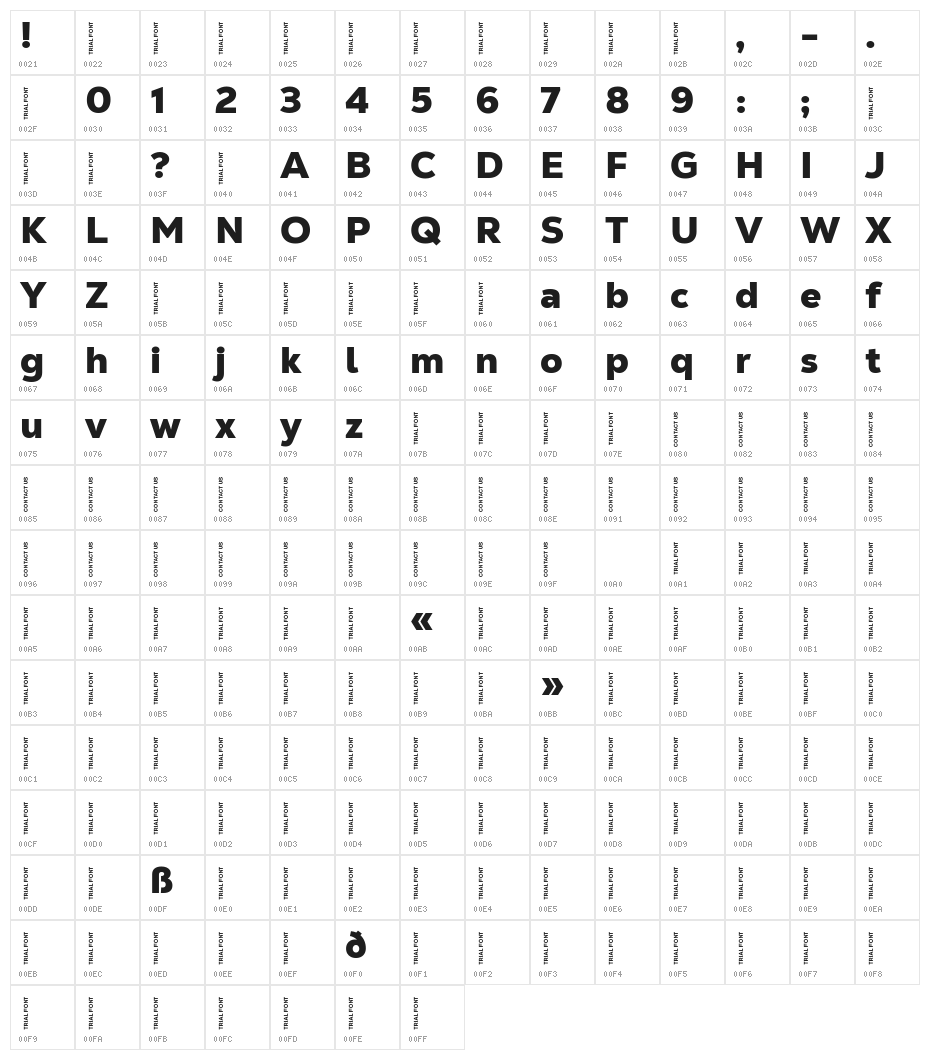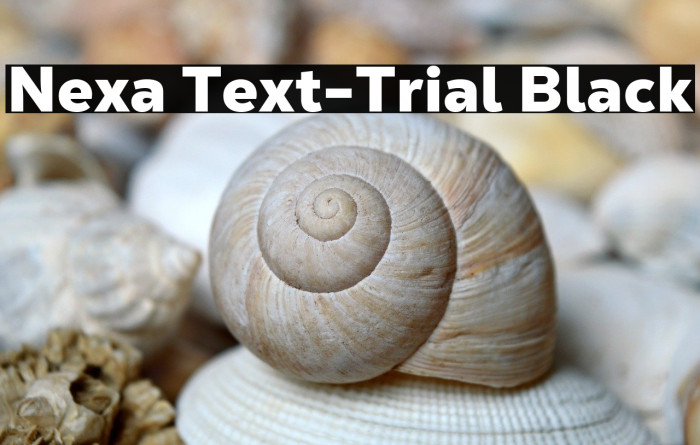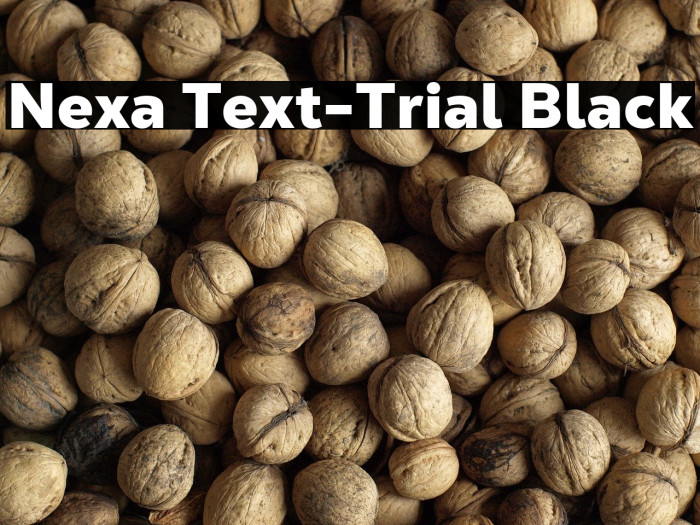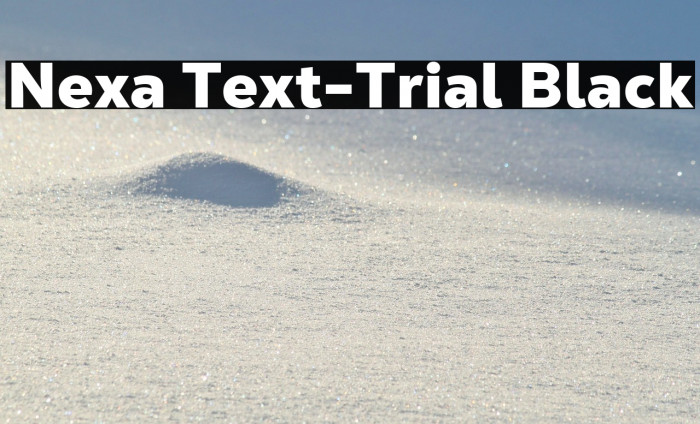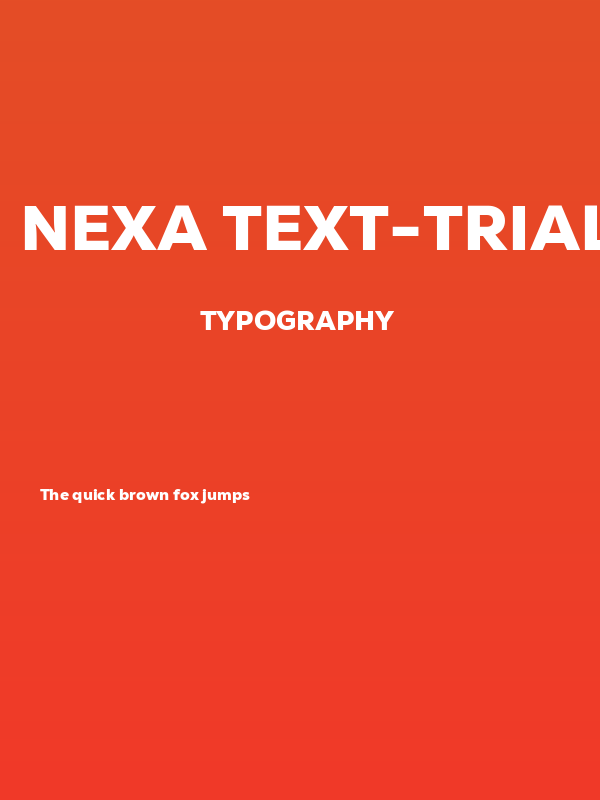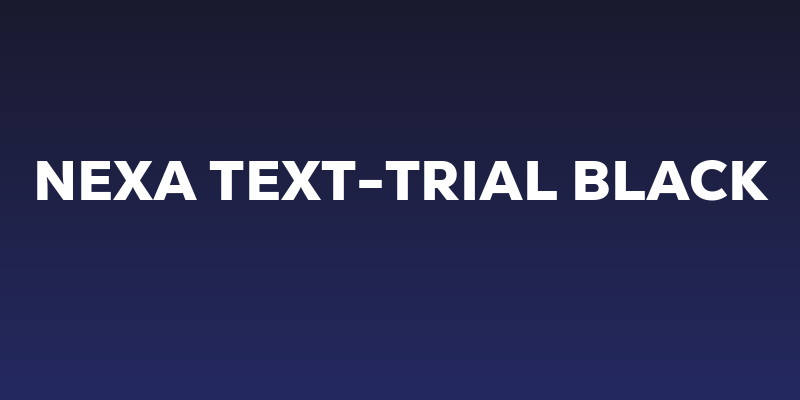
Nexa Text-Trial Black Font
Nexa Text-Trial Black Description
This font features a bold, geometric sans-serif style with clean lines and a modern aesthetic. The characters are well-proportioned, offering a strong visual impact that is both contemporary and versatile. The uppercase letters are uniform in height, while the lowercase letters maintain a consistent baseline, enhancing readability. The numerals are clear and distinct, matching the boldness of the alphabet. Special characters are included, maintaining the same weight and style, ensuring cohesive design across various uses. The overall design is straightforward yet impactful, making it suitable for a wide range of applications.
| Proposed Projects | Ideal for branding, headlines, advertising, and digital interfaces where a strong, modern presence is desired. |